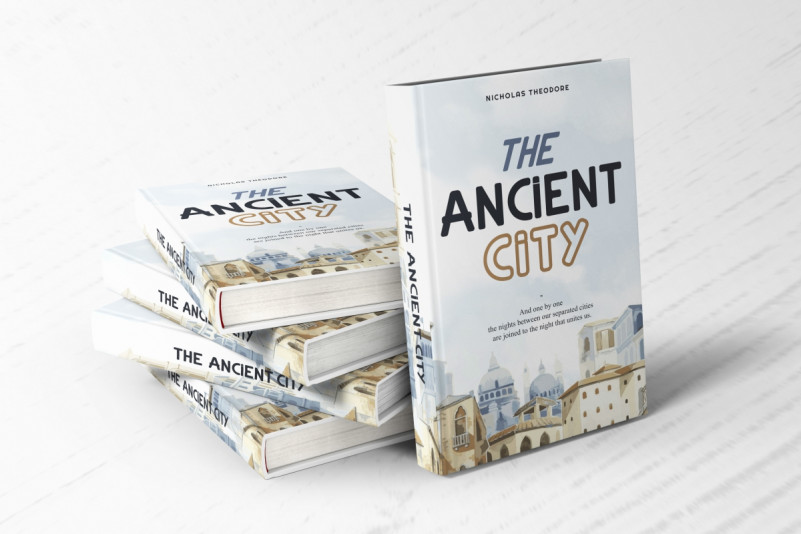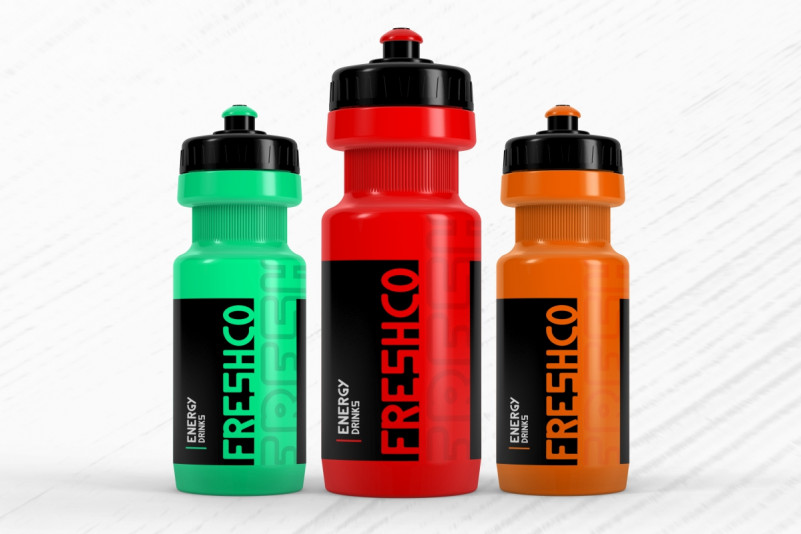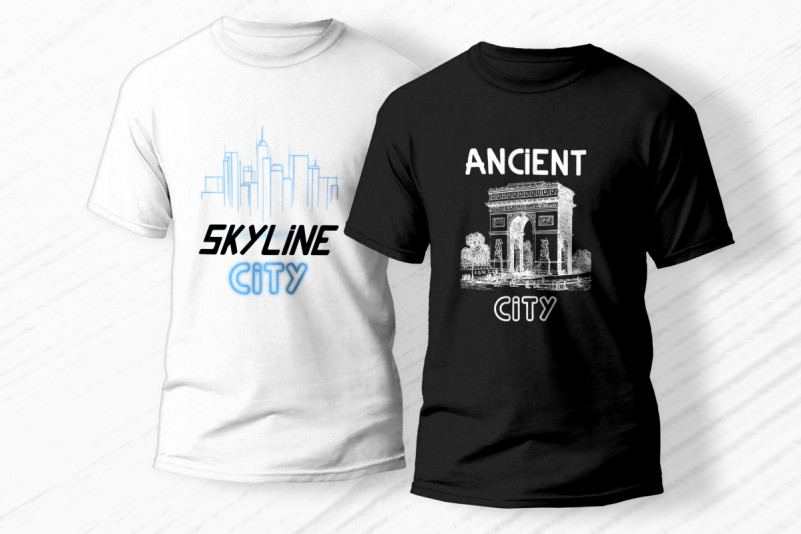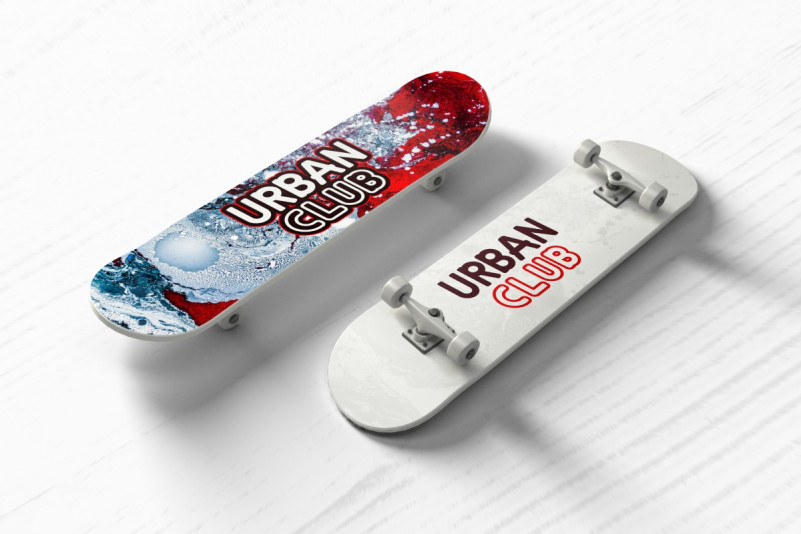
Atlanta Corner Sans Serif Font
Atlanta Corner Font is a modern sans serif display font family. The font has a unique modern style that will bring the authentic excusive touch to the design. It will also works for tech company, startup, business, real estate, technology, health products etc
Atlanta Corner Sans Serif Font has THREE styles : Reguler, Outline and Italic. It includes full set of Uppercase and Lowercase Basic Characters, Numerals and Punctuation. You can also combine two or more styles on the text like we did on the cover, so you will great even more unique and special font. The font is perfect for many projects, headlines, logos, poster, tittle, products, etc